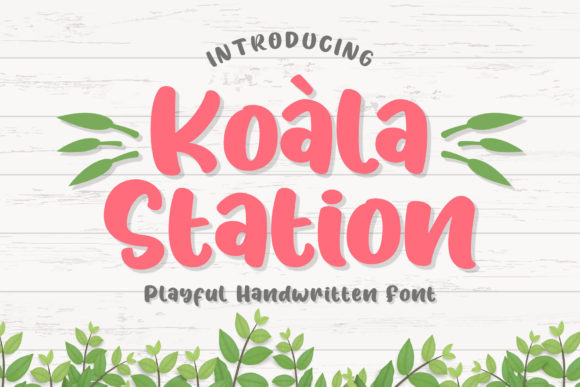
Embark on a playful adventure with Koala Station Font, a whimsical script font family that oozes creativity and imagination. Meticulously crafted by Madatype Studio, Koala Station captures the charm and innocence of a child's handwriting, bringing a touch of magic to every design.
Unleash your creativity and let your imagination run wild as you explore the endless possibilities that await within this captivating font. Koala Station's playful nature makes it the perfect choice for children's books, invitations, greeting cards, and any project that calls for a touch of childlike wonder.
With its unique and expressive characters, Koala Station has the power to transform your designs into captivating works of art. Its playful charm will add a personal touch to your projects, inviting readers to embark on an enchanting journey through your words and visuals.
This font is more than just a collection of characters; it's a gateway to a world of creativity and imagination. It's an invitation to embrace the magic of childhood and let your inner child shine through.
Embrace the playful spirit of Koala Station Font, let your creativity soar, and create designs that bring joy and wonder to the world.